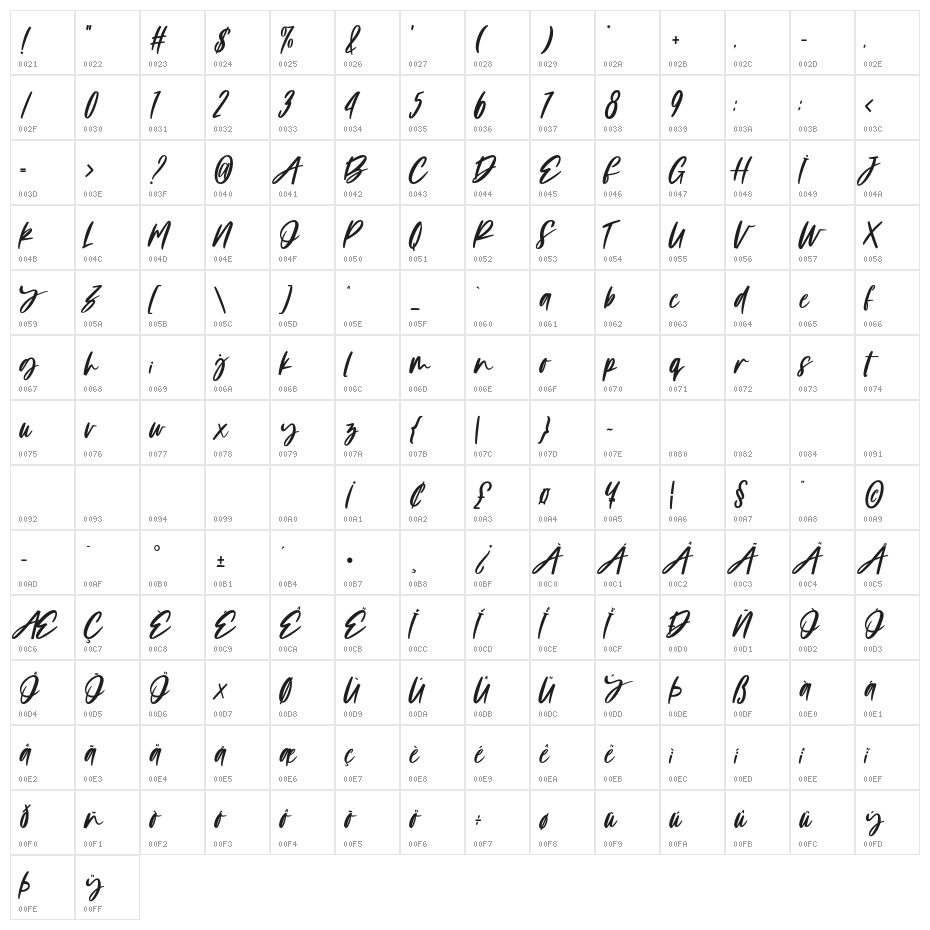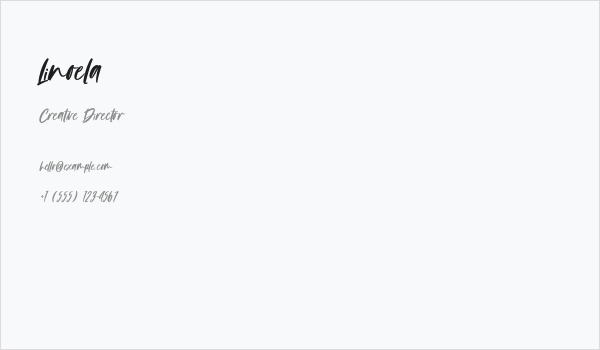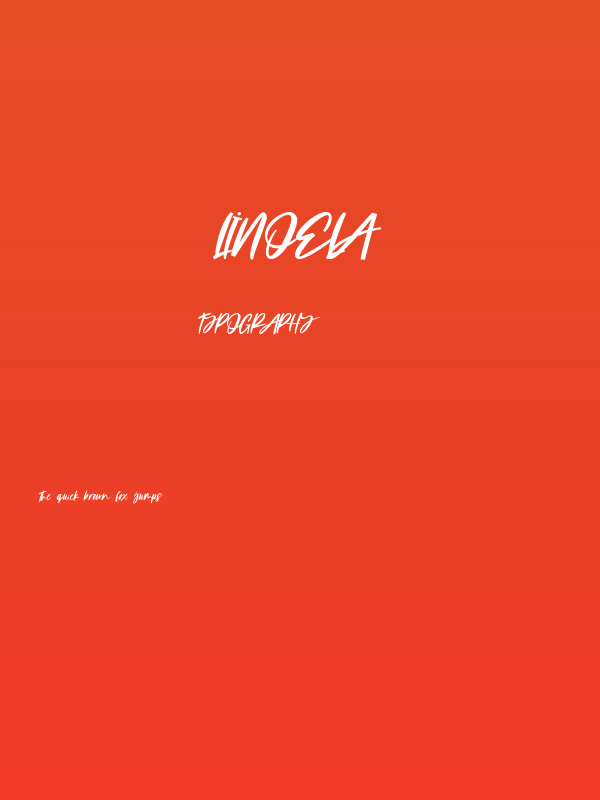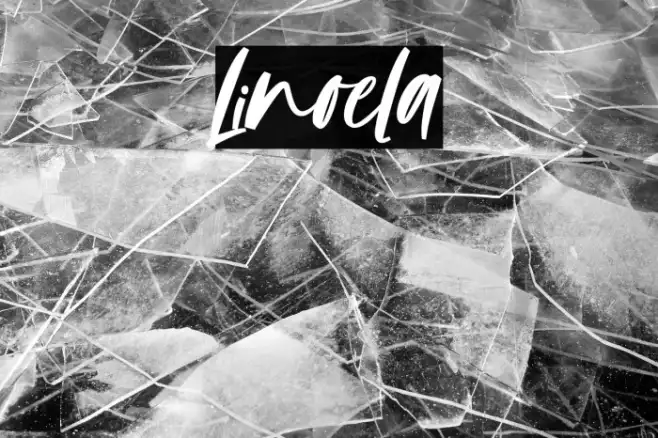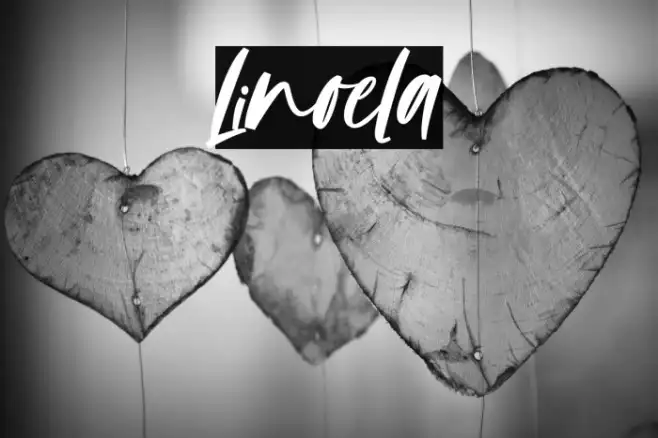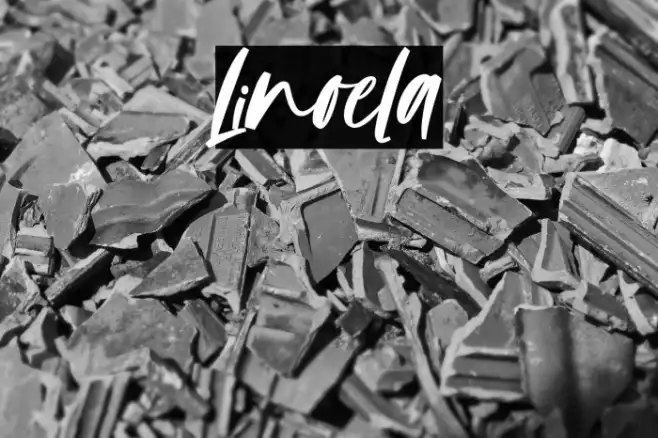
Linoela Font
Linoela Description
This font features a dynamic and expressive handwritten style, characterized by its bold and fluid strokes. The letters are slightly slanted, giving a sense of motion and energy. The uppercase and lowercase letters maintain a consistent style, with smooth curves and varying line thickness that add to its lively appearance. The numerals and special characters are crafted with the same attention to detail, ensuring a cohesive look across all elements. This font's playful yet sophisticated design makes it suitable for a variety of creative projects.
| Proposed Projects | Ideal for branding, invitations, greeting cards, and social media graphics. |